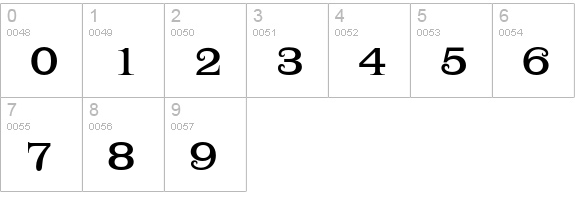
LehmannC Font Details
LehmannC is a beautifully crafted font that exudes elegance and sophistication. Its timeless appeal is perfect for a wide range of design projects, from advertising materials to wedding invitations. With its graceful curves and refined letterforms, LehmannC captures attention and adds a touch of class to any composition. What sets LehmannC apart is not only its stunning aesthetic, but also the fact that it is completely free. Yes, you read that right - this incredible font is freely available to download at FontsMarket.com. Now you can elevate your designs without breaking the bank. Whether you're a professional designer or a creative enthusiast, LehmannC offers endless possibilities. Its versatility allows it to seamlessly adapt to various design styles and themes, making it a go-to choice for both print and digital projects. From logos and headlines to body text and captions, LehmannC effortlessly enhances the visual impact of any piece. But it's not just about looks - LehmannC is also highly legible, ensuring that your message is effortlessly communicated to your audience. Its carefully designed letterforms provide optimal readability, even at smaller sizes, making it suitable for both print and digital mediums. So why wait? Discover the beauty and versatility of LehmannC today. Download this remarkable font for free at FontsMarket.com and let your creativity soar. Whether you're working on a personal project or a client's assignment, LehmannC will be your trusted companion, adding that extra touch of elegance and style that sets your designs apart.